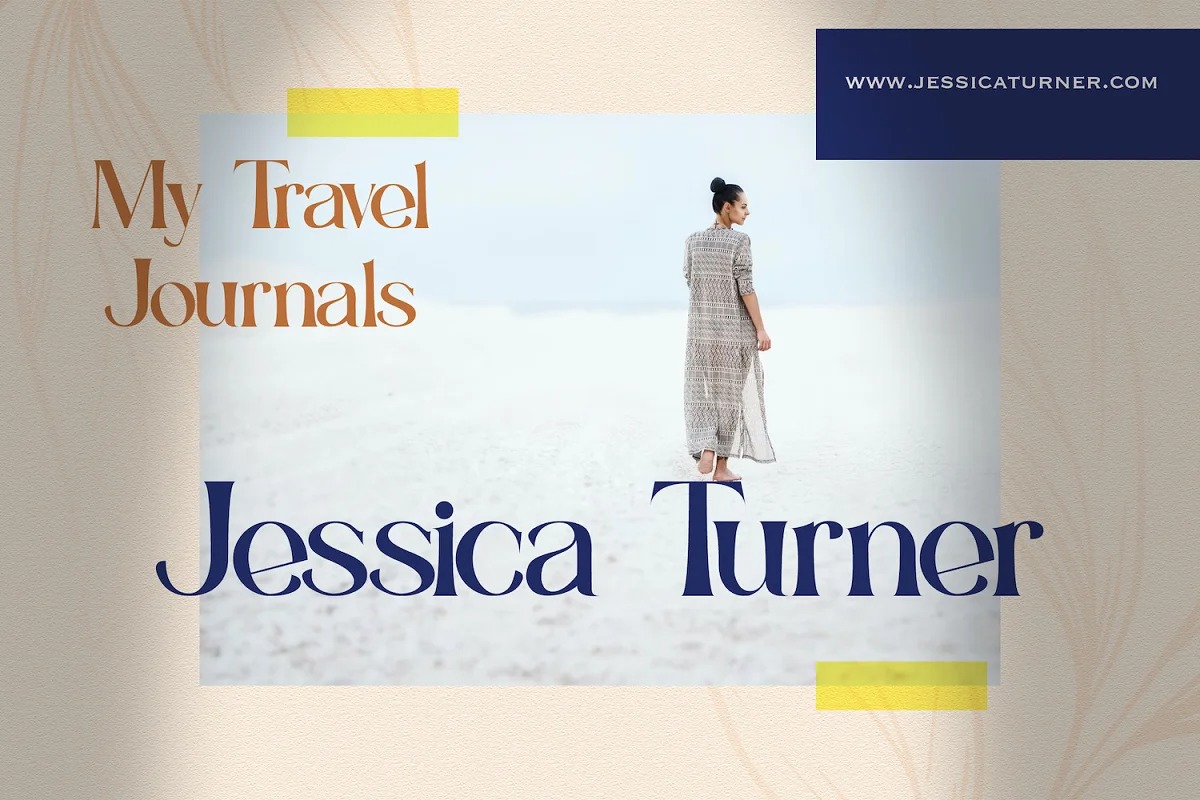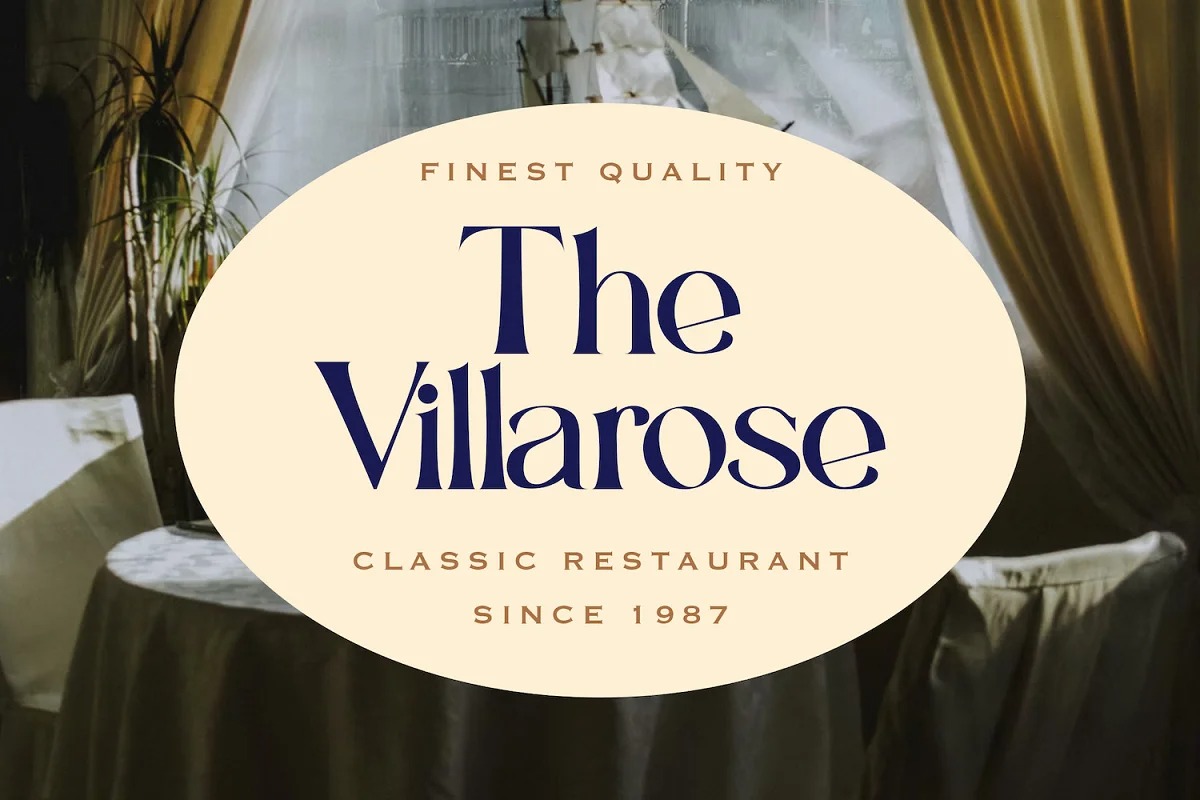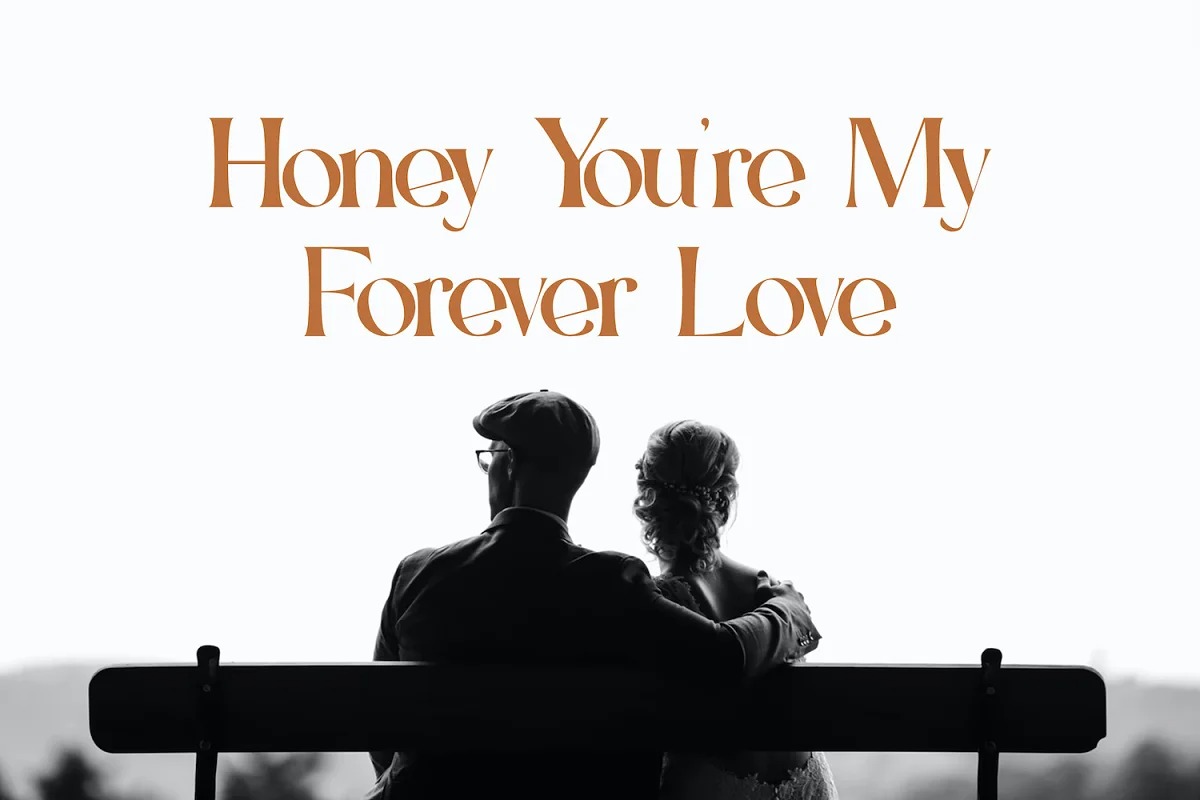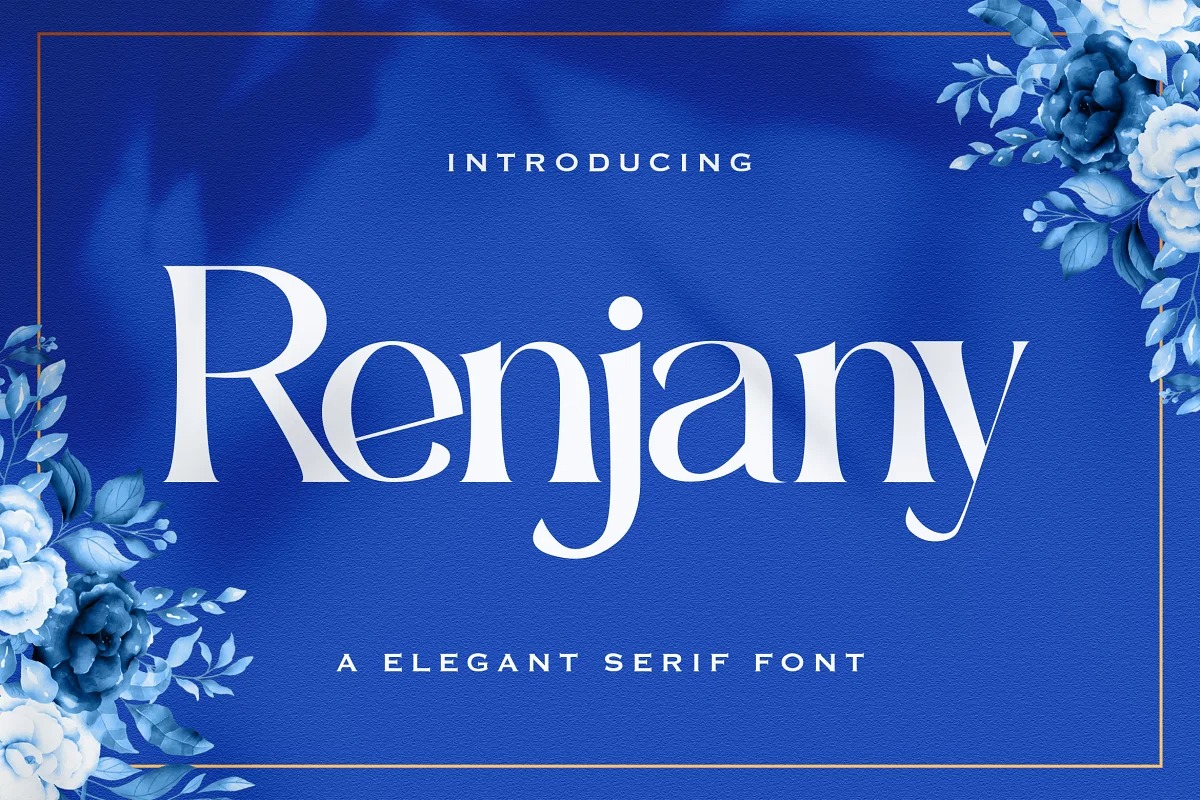
Renjany Serif Font
This is a versatile serif font with a timeless, classic appeal. Renjany come with clean lines and smooth curves give any project an extra touch of class. It’s perfect for editorial projects, Logo design, Clothing Branding, product packaging, magazine headers, or simply as a stylish text overlay to any background image.